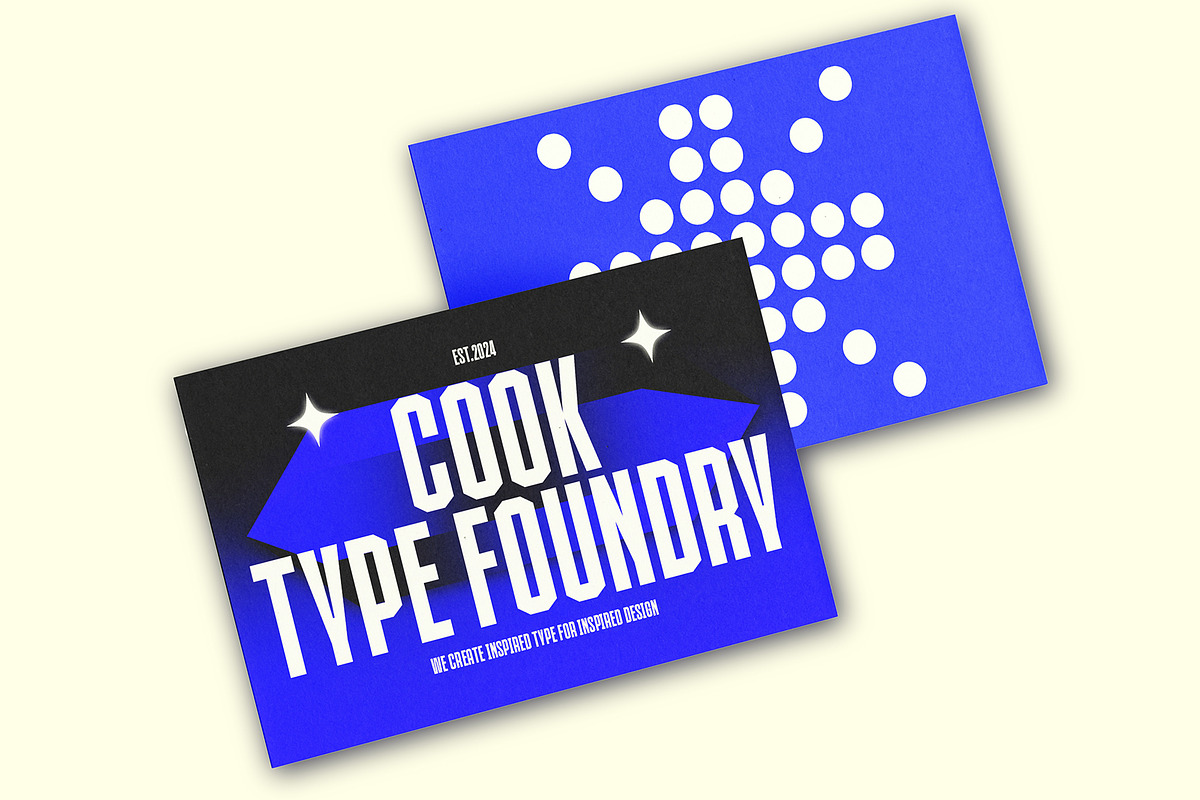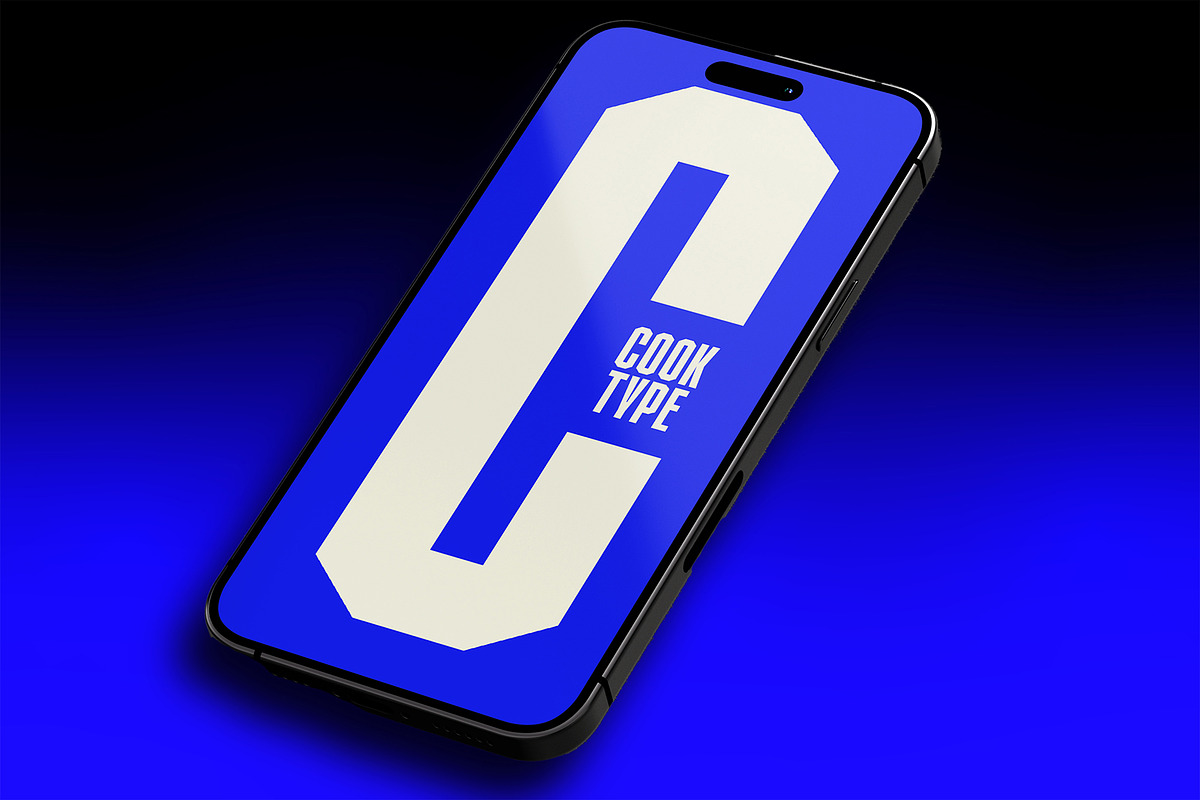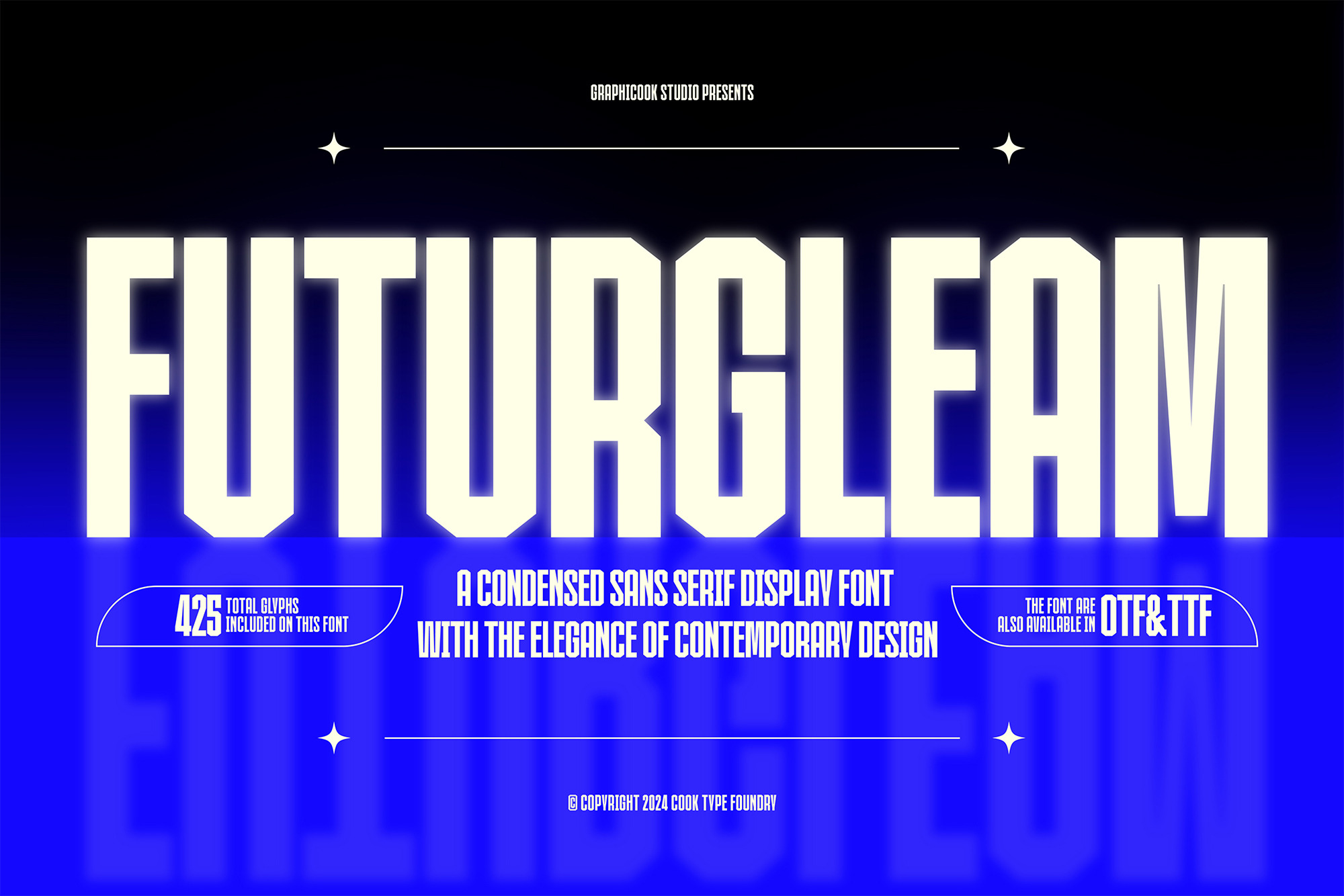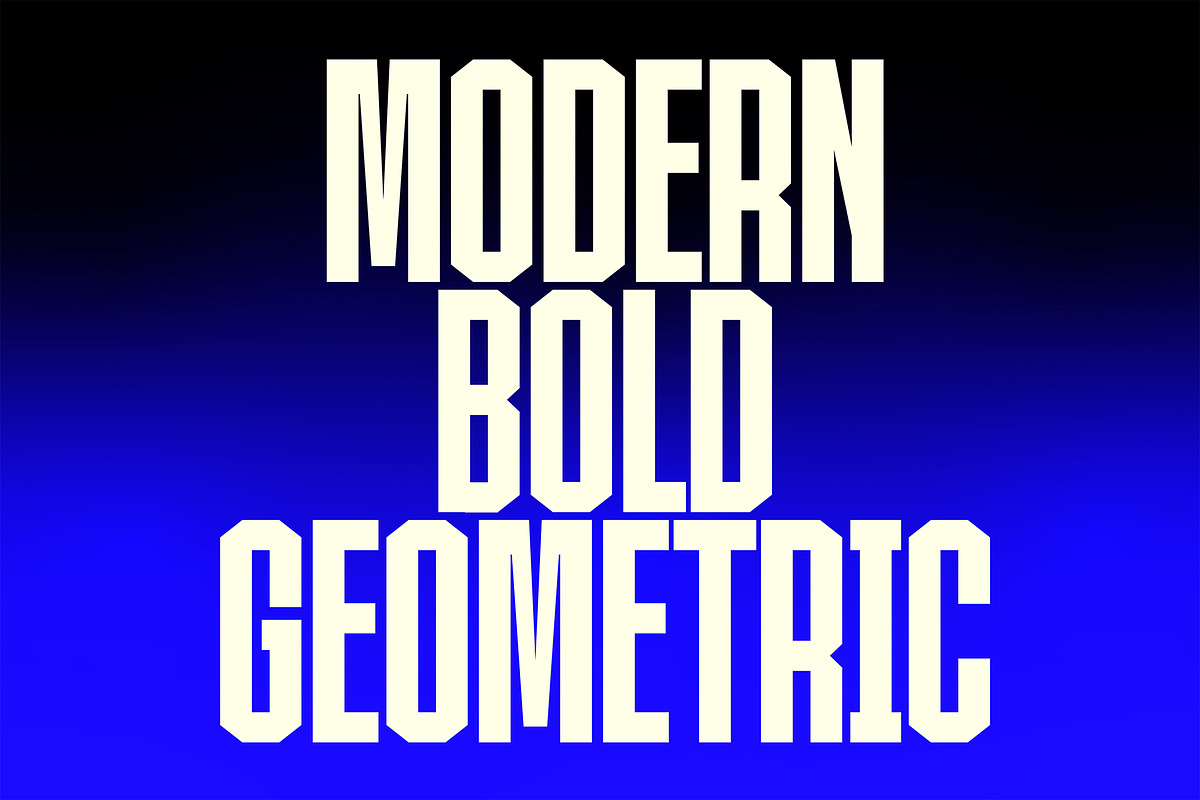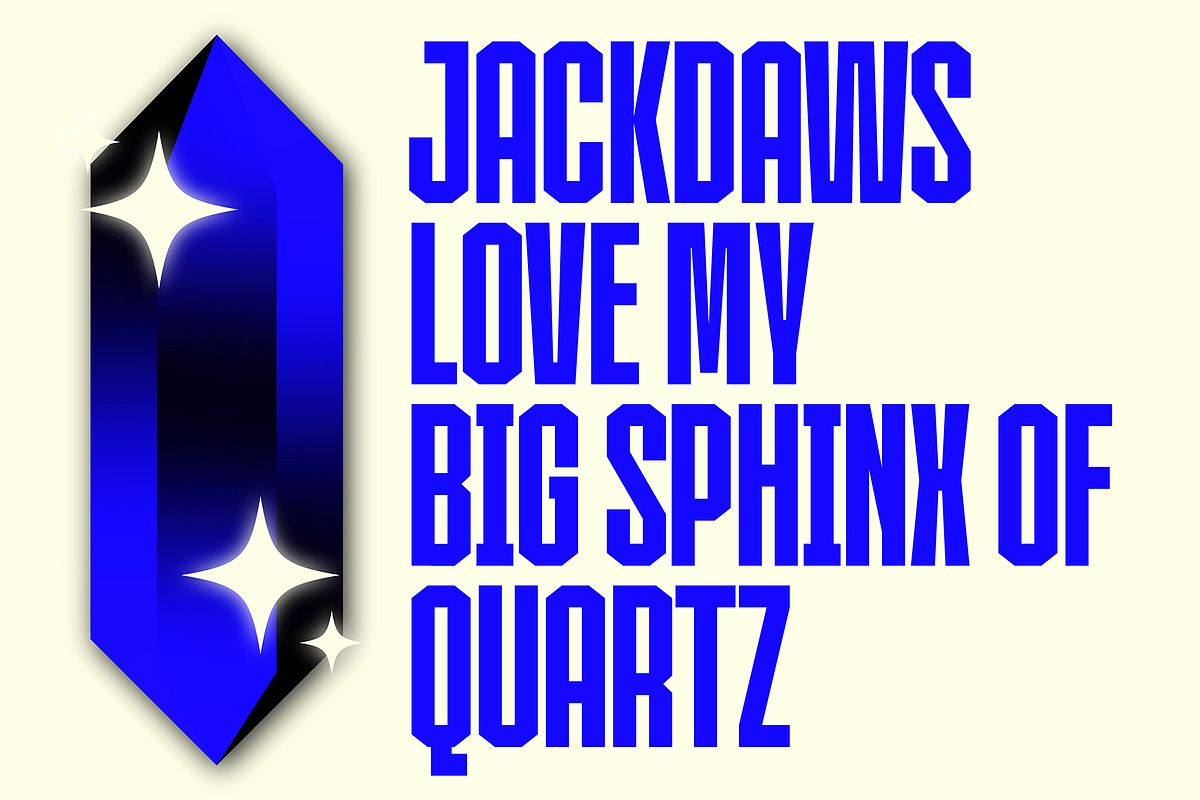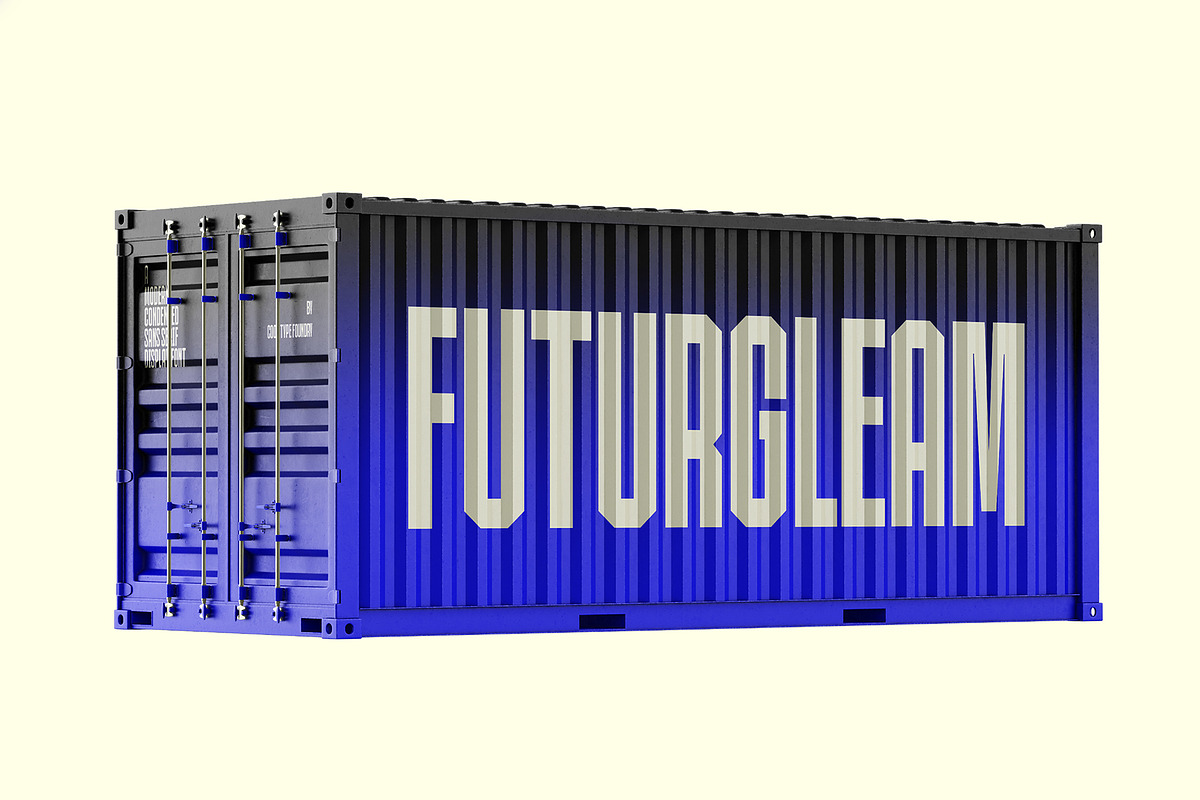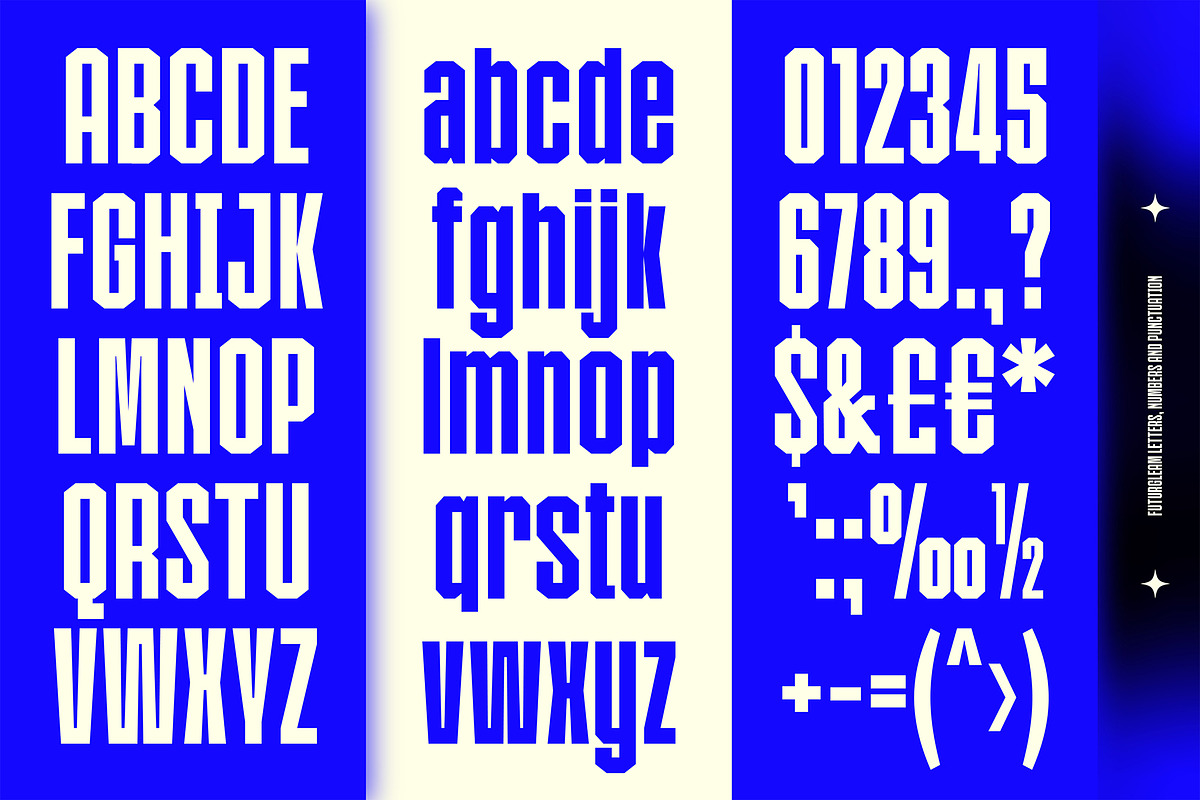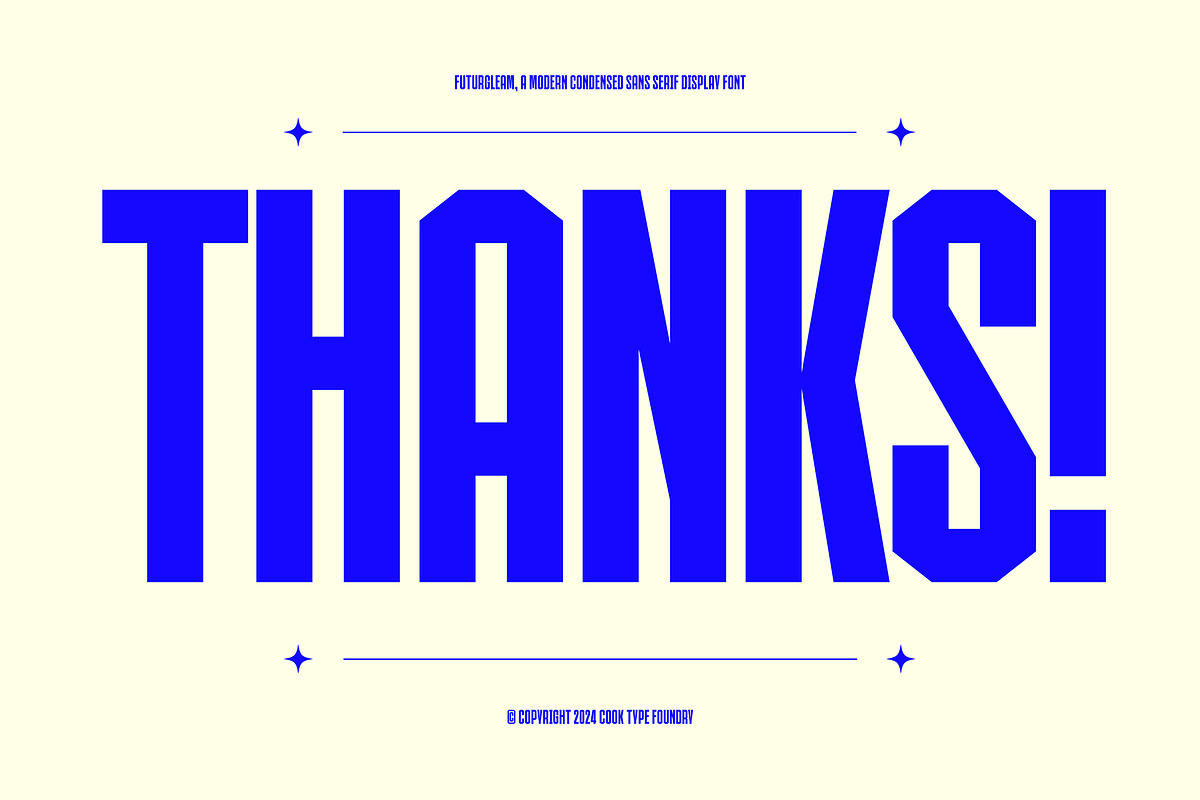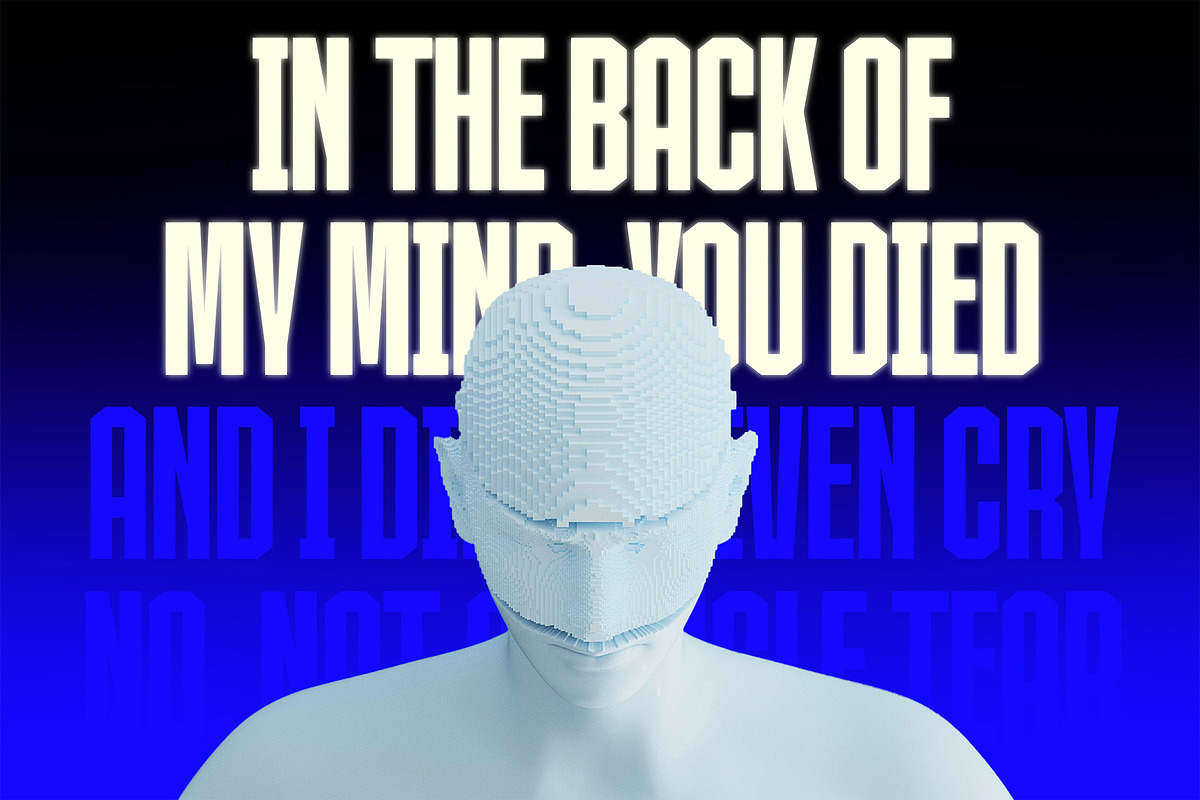
Futurgleam Display Typeface
Futurgleam is the elegance of contemporary design. Combining gothic letter form with futuristic touch. It's suitable for posters, editorial work, packaging, and many others.
Futurgleam is perfect for headlines, logotypes, magazines, packaging, quotes, movies, games, cover albums, book covers, and flyers, it's a perfect solution for creating eye-catching designs that stand out in any context.